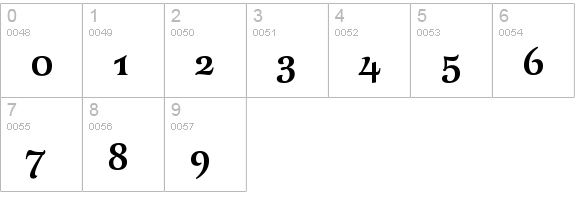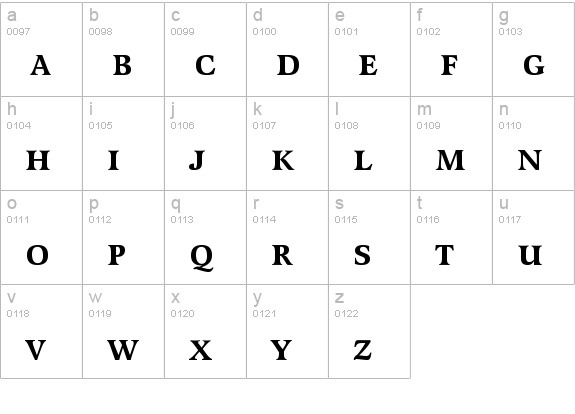
LatienneEF-MediumSC Font Details
LatienneEF-MediumSC font is a stunning display font that exudes elegance and sophistication. It is the perfect choice for projects that require a touch of class and refinement. With its delicate curves and graceful letterforms, this font captures attention and adds a touch of luxury to any design. The medium weight of this font strikes a balance between boldness and subtlety, making it versatile and suitable for a wide range of design applications. Whether used for headlines, titles, logos, or invitations, LatienneEF-MediumSC font delivers a timeless and stylish look. One of the best things about LatienneEF-MediumSC font is that it is available for free download at FontsMarket.com. This means that you can easily access and use this remarkable font without incurring any cost. FontsMarket.com provides a convenient platform for designers and enthusiasts to explore and acquire a vast collection of high-quality fonts, and LatienneEF-MediumSC font is no exception. Downloading LatienneEF-MediumSC font from FontsMarket.com is a simple and hassle-free process. Once you have obtained this font, you can unleash your creativity and utilize it in various design projects. Whether you are designing for print or digital media, LatienneEF-MediumSC font will elevate your work and leave a lasting impression. In conclusion, LatienneEF-MediumSC font is an exquisite typeface that combines elegance and versatility. Its availability as a free download at FontsMarket.com makes it a valuable asset for designers and creatives who seek to add a touch of sophistication to their projects. Discover the beauty of LatienneEF-MediumSC font and let your designs shine with its timeless appeal.